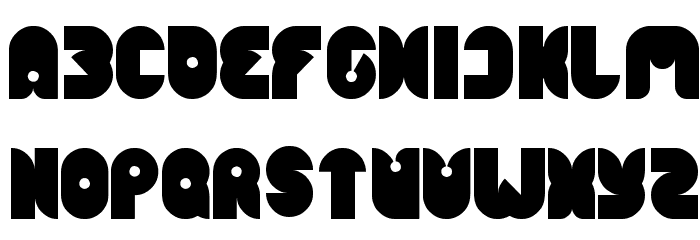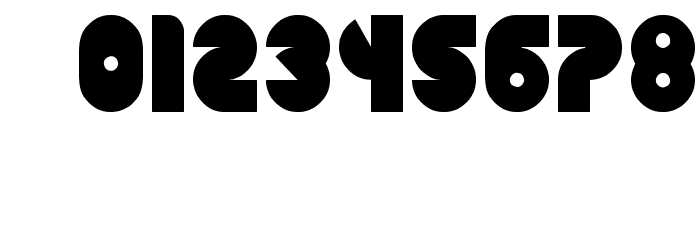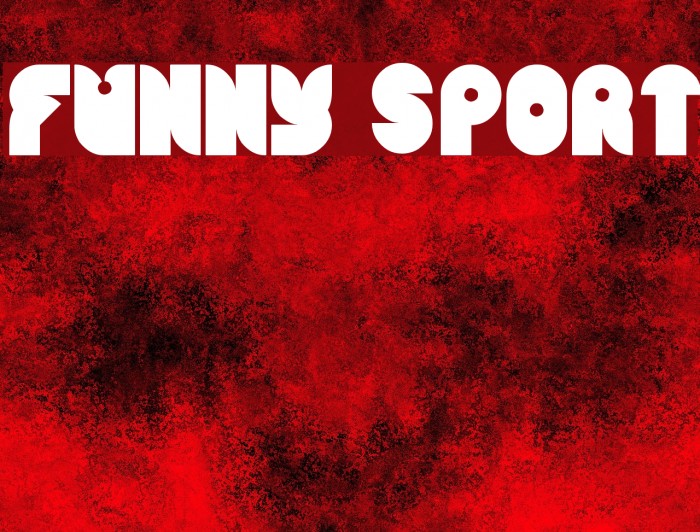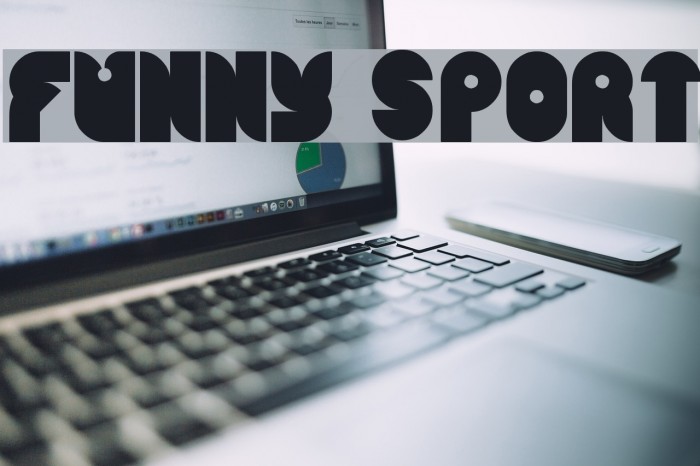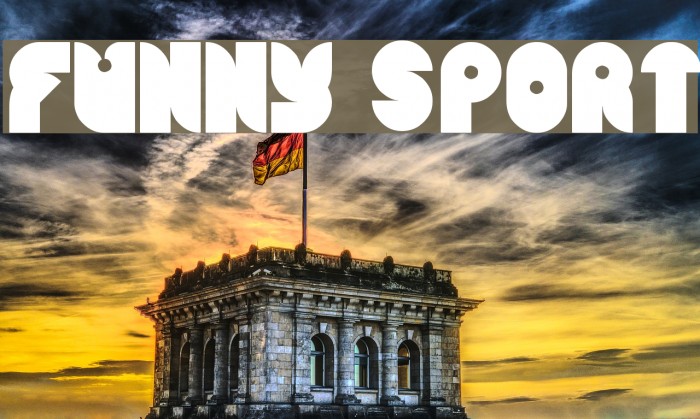
funny sport Font
This font features a bold and playful design with geometric shapes and a distinctively modern style. The characters are composed of thick, rounded forms with a unique use of negative space, creating a sense of movement and energy. The uppercase letters are particularly striking, with some characters incorporating circular cutouts that add a dynamic visual interest. The numbers follow the same bold aesthetic, ensuring consistency across all characters. This font is designed to capture attention and convey a sense of fun and creativity.
A bold, geometric font with playful, modern design elements.
- Proposed Projects: Ideal for sports branding, playful posters, children's book covers, and dynamic advertising campaigns.